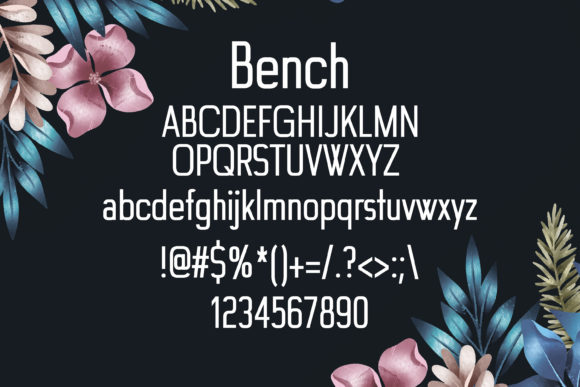
Introducing Bench Font: A Modern and Simple Display Font for Elevating Your Creations
In the world of typography, a font can make or break a design. A well-chosen font can elevate a creation from ordinary to extraordinary, while a poorly chosen one can detract from the overall impact. For designers and crafters looking to add a touch of modern simplicity to their work, Bench Font is an excellent choice. In this article, we’ll explore the features and benefits of Bench Font, and why it’s an incredibly valuable asset to your font library.
What is Bench Font?
Bench Font is a modern and simple display font designed to make a statement. Its clean lines, elegant curves, and minimalist aesthetic make it perfect for a wide range of applications, from branding and advertising to packaging and digital media. Whether you’re working on a logo, headline, or title, Bench Font is sure to grab attention and leave a lasting impression.
Key Features of Bench Font
• Modern and Simple Design: Bench Font boasts a sleek and contemporary design that’s both stylish and sophisticated.
• High Versatility: This font is incredibly versatile, making it suitable for a wide range of projects, from digital media to print materials.
• Elegant Curves: The elegant curves and lines of Bench Font add a touch of refinement and luxury to any design.
• Excellent Legibility: Despite its modern and minimalist design, Bench Font remains highly legible, even at small sizes.
Benefits of Using Bench Font
So, why should you choose Bench Font for your next project? Here are just a few benefits of using this exceptional font:
• Elevate Your Designs: Bench Font has the power to elevate any creation, adding a touch of sophistication and style.
• Save Time: With Bench Font, you can create stunning designs in no time, thanks to its clean and simple design.
• Increase Versatility: This font can be used across a wide range of projects, making it an excellent addition to your font library.
• Stand Out from the Crowd: Bench Font is a unique and distinctive font that will help your designs stand out from the competition.
How to Use Bench Font
• Pair with Other Fonts: Bench Font pairs well with a wide range of fonts, making it easy to create stunning font combinations.
• Experiment with Sizes: Don’t be afraid to experiment with different sizes and scales to add visual interest to your designs.
• Use in Digital Media: Bench Font is perfect for digital media, including social media graphics, website headers, and more.
In conclusion, Bench Font is an exceptional modern and simple display font that’s sure to elevate any creation. Its clean design, elegant curves, and high versatility make it an incredibly valuable asset to your font library. Whether you’re a designer, crafter, or simply someone looking to add a touch of style to your work, Bench Font is an excellent choice. So why wait? Download Bench Font today and take your designs to the next level!